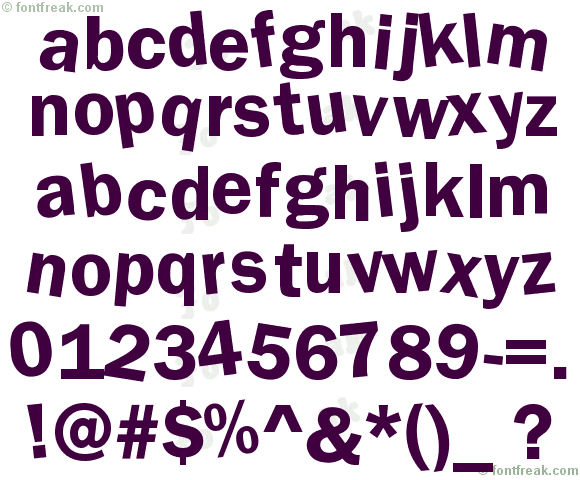
Ddaft Lowercase by The Font Farm is a unique display font that captures the essence of playful creativity. This font falls into the decorative category, characterized by its whimsical and artistic flair. The strokes are moderately thick, creating a bold presence that is both eye-catching and engaging. With minimal contrast, the uniformity of stroke weight lends a sense of harmony to each letter, while the rounded edges impart a friendly and approachable vibe. The spacing between characters is thoughtfully designed, ensuring legibility while still maintaining a fun aesthetic.
Ddaft Lowercase is perfect for a variety of creative applications. Its playful nature makes it an ideal choice for children's book covers, where it can add a sense of adventure and excitement. Additionally, this font shines in the realm of social media graphics, helping content creators capture attention and foster engagement. Restaurant menus that aim for a casual and inviting atmosphere will benefit from the cheerful character of Ddaft Lowercase. It also serves well in branding for boutique shops, where a unique touch can set a small business apart from the competition.
What truly sets Ddaft Lowercase apart is its ability to blend playfulness with professionalism, making it an excellent choice for a variety of design needs. Whether you are creating promotional materials or personal projects, this font is sure to leave a memorable impression on your audience.